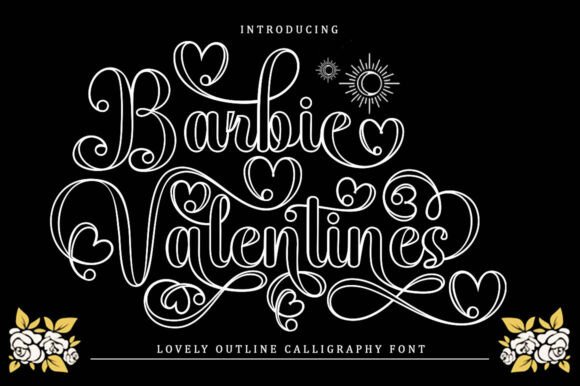
Unveiling the Elegance of Barbie Valentines Outline Font
In the realm of typography, few fonts manage to capture the essence of elegance and sophistication as effortlessly as the Barbie Valentines Outline font. This exquisite calligraphy font is a masterpiece of design, blending timeless allure with a modern touch of glamour. In this comprehensive article, we’ll delve into the intricacies of the Barbie Valentines Outline font, exploring its unique characteristics, the creative flexibility it offers, and why it has become a favorite among designers and typography enthusiasts alike.
The Allure of Barbie Valentines Outline
At first glance, the Barbie Valentines Outline font exudes an undeniable charm that captivates attention. Its perfect blend of elegance and femininity, infused with a touch of glamour, makes it an ideal choice for projects that demand a sophisticated aesthetic. Whether it’s for wedding invitations, branding, or any creative endeavor that requires a touch of class, Barbie Valentines Outline proves to be a versatile and stylish companion.
Readability and Design
One of the standout features of the Barbie Valentines Outline font is its simple design and easy-to-read letter connections. This aspect not only enhances its readability but also ensures that the font can be used across various platforms and applications without compromising on legibility. The clean lines and fluid connections between letters contribute to its overall elegance, making it a joy to use in both digital and print media.
Creative Flexibility with Stylized Variations
What sets Barbie Valentines Outline apart from other calligraphy fonts is its adornment with a variety of stylized variations for some letters. This feature offers users a remarkable degree of creative flexibility, allowing them to add a personal touch to their designs. Whether you’re looking to add a whimsical flair to a children’s book or aiming for a more refined look in a luxury brand’s marketing materials, these variations enable you to tailor the font to suit your project’s specific needs.
Applications of Barbie Valentines Outline Font
The versatility of the Barbie Valentines Outline font makes it suitable for a wide range of applications. Here are a few areas where this font truly shines:
- Wedding and Event Invitations: The elegant and sophisticated nature of Barbie Valentines Outline makes it a perfect fit for wedding invitations, save-the-date cards, and other event-related stationery.
- Branding and Logo Design: For businesses that aim to convey a sense of luxury, elegance, and femininity, this font can be a valuable asset in creating a distinctive brand identity.
- Packaging Design: The stylized variations and elegant look of the font make it an excellent choice for product packaging, especially for brands in the beauty, fashion, and lifestyle sectors.
- Digital Media: From social media graphics to website headers, Barbie Valentines Outline can add a touch of sophistication to digital content.
Tips for Using Barbie Valentines Outline Effectively
To make the most out of the Barbie Valentines Outline font, consider the following tips:
- Pair with Complementary Fonts: While Barbie Valentines Outline is elegant on its own, pairing it with a complementary font can enhance its beauty and create visual interest. Opt for fonts that are simple and sans-serif to maintain balance.
- Experiment with Colors: The font’s outline design allows for creative experimentation with colors. Consider using gradients, pastels, or metallic colors to add depth and glamour to your designs.
- Utilize Stylized Variations: Don’t hesitate to explore the stylized variations of letters. These can serve as highlights in your text or be used to create a unique visual hierarchy.
- Consider the Context: Always consider the context in which the font will be used. Ensure that the elegance and femininity of Barbie Valentines Outline align with the message and aesthetic of your project.
The Barbie Valentines Outline font is a testament to the power of elegant design in typography. Its blend of timeless allure, creative flexibility, and readability makes it a valuable tool for designers and anyone looking to add a touch of sophistication to their projects. Whether you’re working on a wedding invitation, a brand identity, or digital content, Barbie Valentines Outline is sure to leave a lasting impression. Embrace the elegance and glamour of this exquisite font, and let it elevate your designs to new heights of sophistication and beauty.